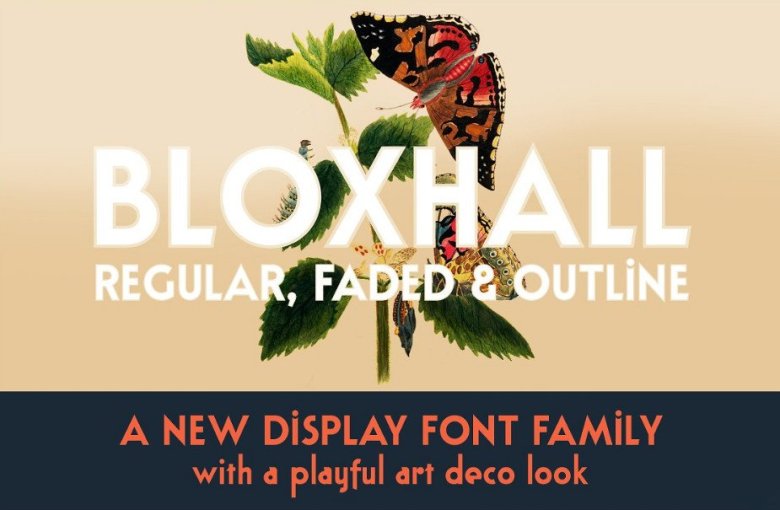
Bloxhall Display Font
If you are in need of a sans serif display font for your project, this is a perfect choice. Introducing Bloxhall Font Family! Bloxhall designed by Ana’s Fonts. Bloxhall is a sans serif display font with an art deco inspired style. Bloxhall’s different variations and solid retro look, make it a perfect set for poster design, logotypes & branding, editorial design, titles, short phrases & slogans. Your creativity is the limit!